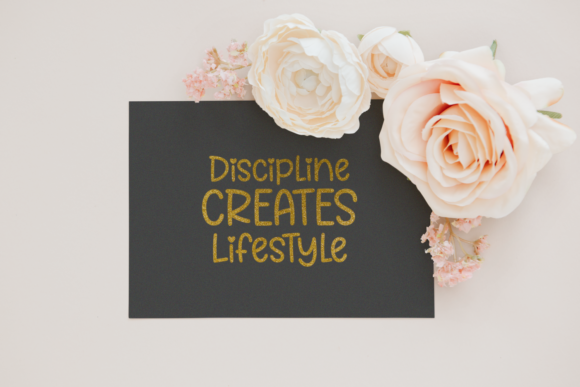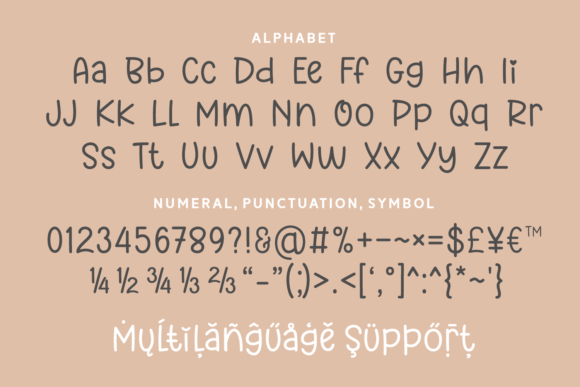
Introduction to Ningst Destiny of Love Font
As a designer, there’s nothing quite like the thrill of finding that perfect font to elevate your creative project. You’re working on a romantic Valentine’s Day campaign, and suddenly, you stumble upon a font that captures the essence of love and whimsy. For me, that font was Ningst Destiny of Love Font – a sweet, quirky, and relaxed handwritten font that adds a touch of warmth to any design.
Whether you’re working on a design project that requires a friendly and approachable vibe or need a font to give your creative project a high-quality, transparent background, Ningst Destiny of Love Font is an excellent design resource to have in your arsenal. With its free download option, you can easily incorporate it into your next design and give it that extra special something.
Key Features of Ningst Destiny of Love Font
- Unique, hand-drawn design with a touch of whimsy, perfect for creative projects
- Designed to evoke a sense of romance and love, making it ideal for Valentine’s Day, wedding, or anniversary-themed projects
Honest Review: Ningst Destiny of Love Font
As a designer, I’m always on the lookout for high-quality design resources that can elevate my creative projects. I recently stumbled upon the Ningst Destiny of Love Font, and I’m excited to share my honest review with you.
What works well: ✨ This font has a unique, hand-drawn feel that’s perfect for adding a touch of whimsy to your designs. The high quality of the font is evident, with clear, crisp lines and a transparent background that makes it easy to use on any background. I love that it’s available for free download, making it a great resource for designers on a budget.
Overall impression: I’m really impressed with the Ningst Destiny of Love Font. It’s a great addition to any designer’s toolkit, and I can see it being used in a variety of creative projects, from wedding invitations to children’s books.
- Unique, hand-drawn design
Tips for Getting the Most Out of Ningst Destiny of Love Font
To maximize the potential of this high-quality font, experiment with different font sizes, colors, and styles to create visually appealing designs. Use the font’s transparent background feature to create a cohesive look with other design elements.
The Ningst Destiny of Love Font is ideal for creative projects such as wedding invitations, social media graphics, and blog posts. Its high-quality design and transparent background feature make it a versatile resource for designers and non-designers alike.